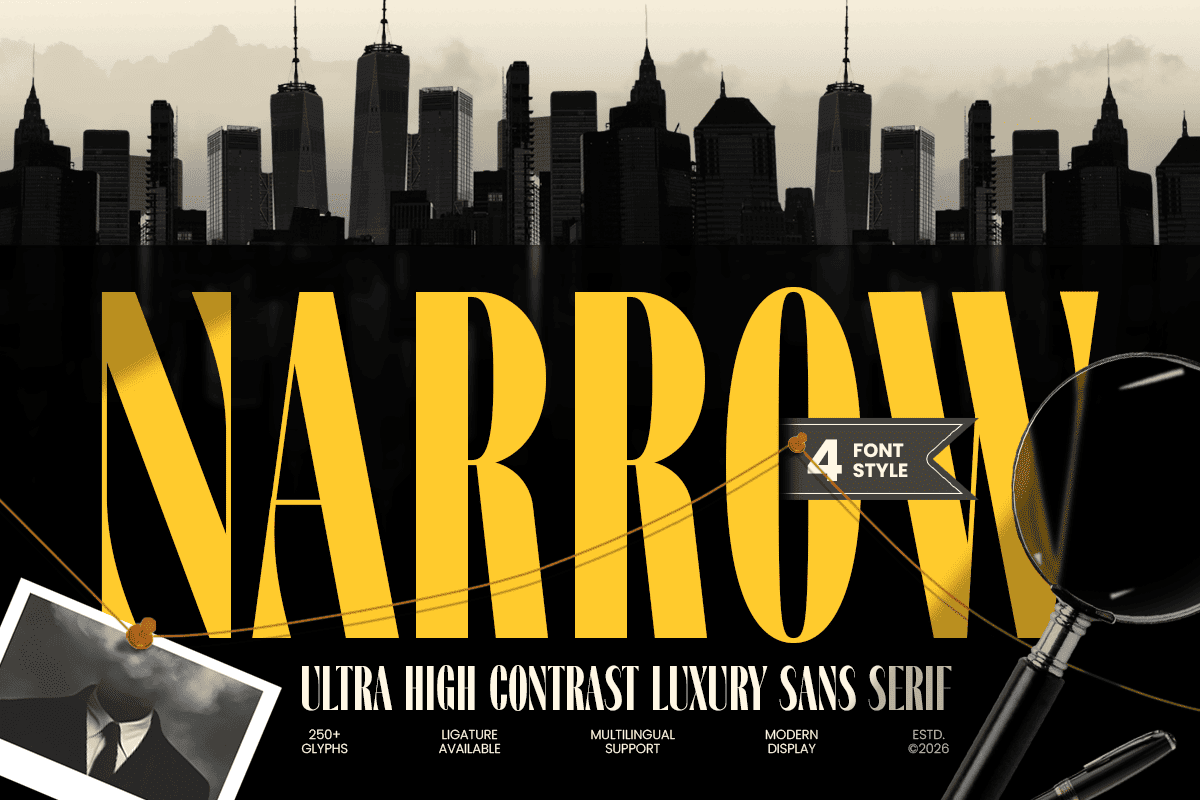
Narrow
-Ultra High Contrast Luxury Sans Serif Font
Narrow – Ultra High Contrast Luxury Sans
NARROW is an ultra high contrast luxury sans serif font designed with a sophisticated balance of elegance and modern minimalism. Featuring dramatic contrast, refined proportions, and a premium aesthetic, NARROW creates a distinctive visual identity for brands seeking a high-end and fashionable appearance.
With its sleek structure and graceful character shapes, NARROW is perfect for luxury branding, fashion labels, beauty products, editorial layouts, magazine headlines, premium packaging, and elegant logo designs. Its narrow silhouette adds a sense of exclusivity while maintaining a clean and contemporary presence.
Designed for modern creatives, NARROW brings a timeless yet futuristic feel to both digital and print projects. From boutique identities to sophisticated campaigns, this luxury sans serif font delivers a polished look that stands out with confidence and style.
NARROW – Ultra High Contrast Luxury Sans Serif Font Features
• Ultra high contrast sans serif letterforms
• Elegant and refined luxury aesthetic
• Perfect for fashion, beauty, and premium branding
• Ideal for logos, packaging, headlines, and editorial layouts
• Works beautifully for print and digital projects
• Clean modern style with sophisticated proportions
• OpenType features for creative flexibility
Elevate your visual identity with NARROW – a luxury sans serif font crafted for timeless elegance and premium design. ✨